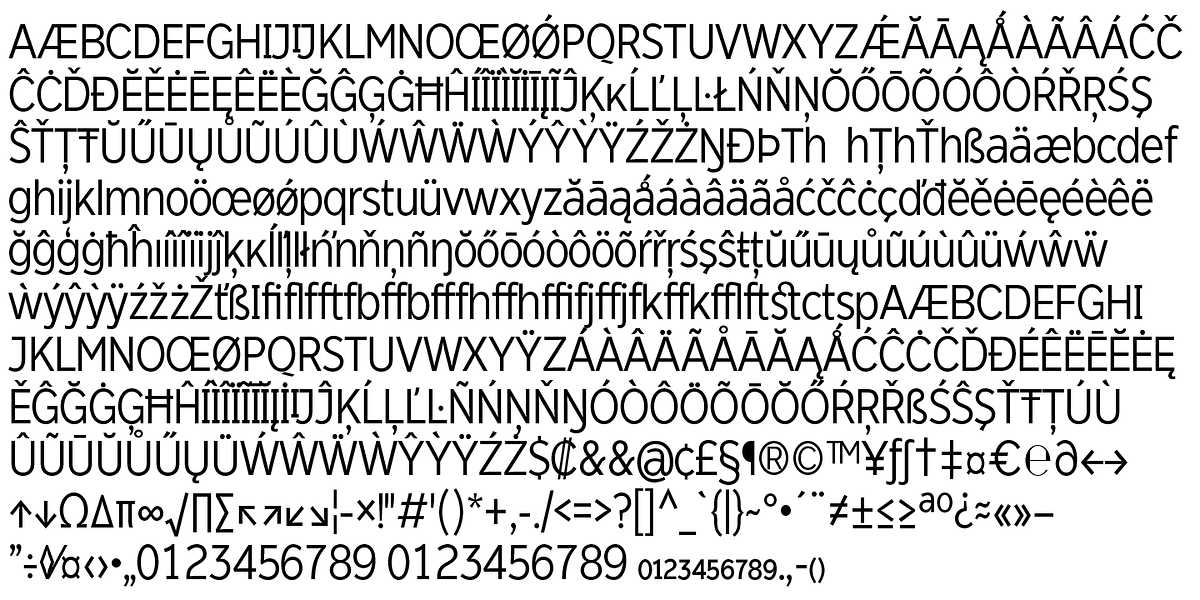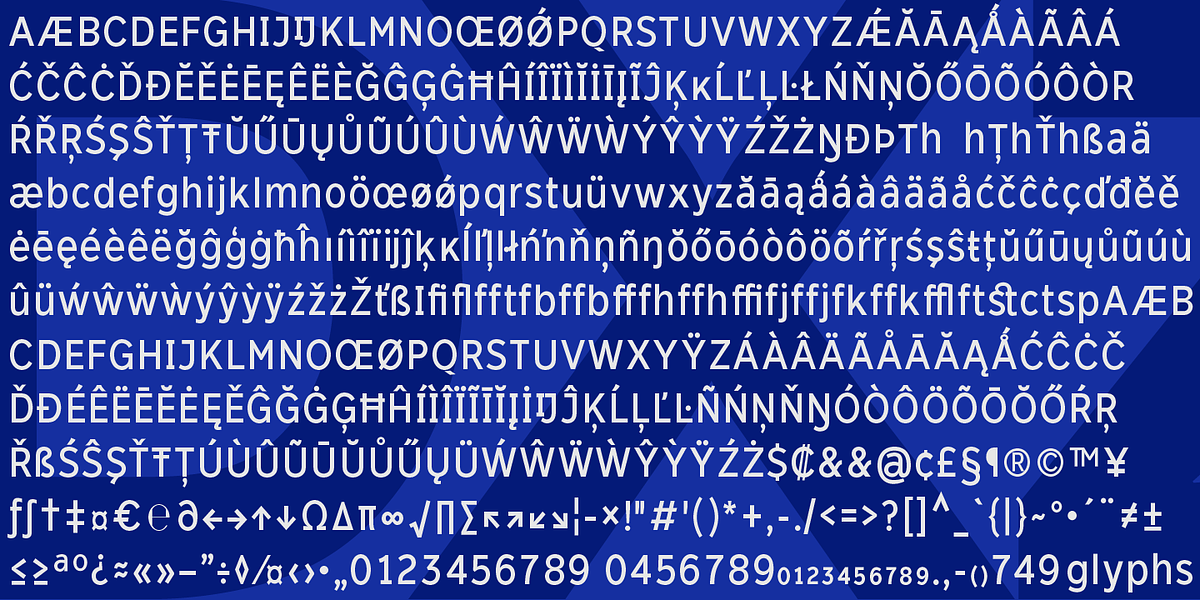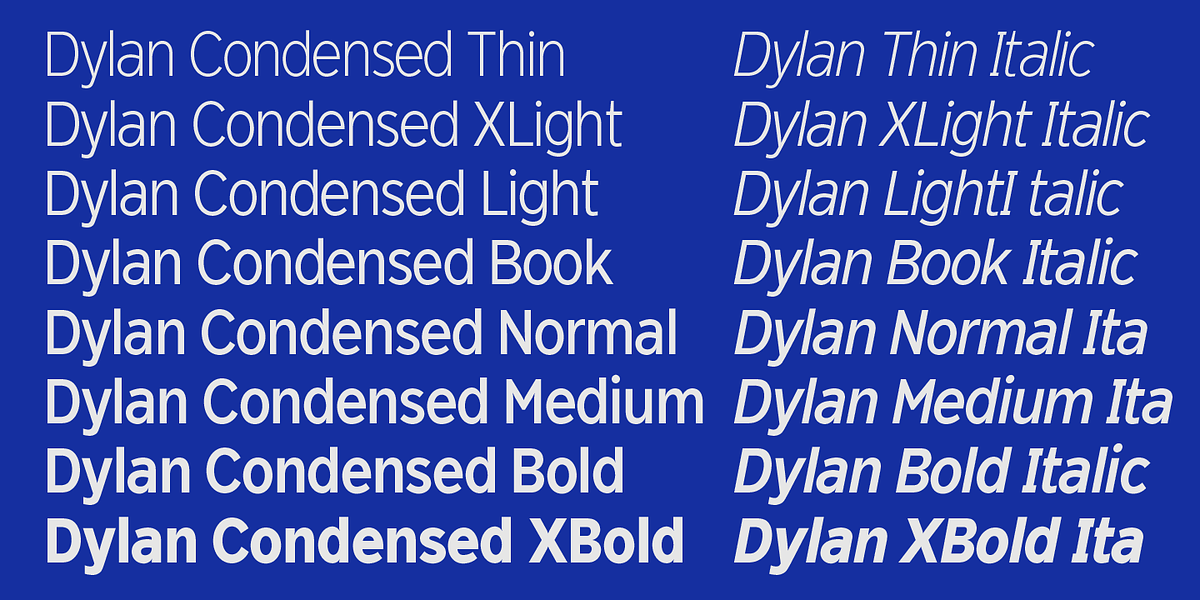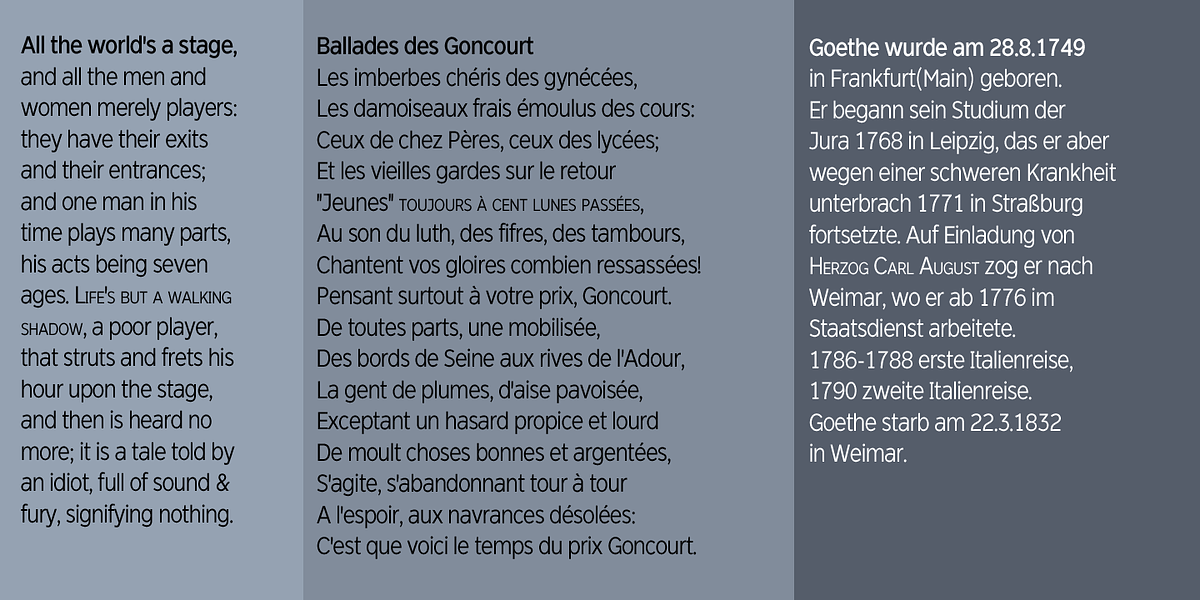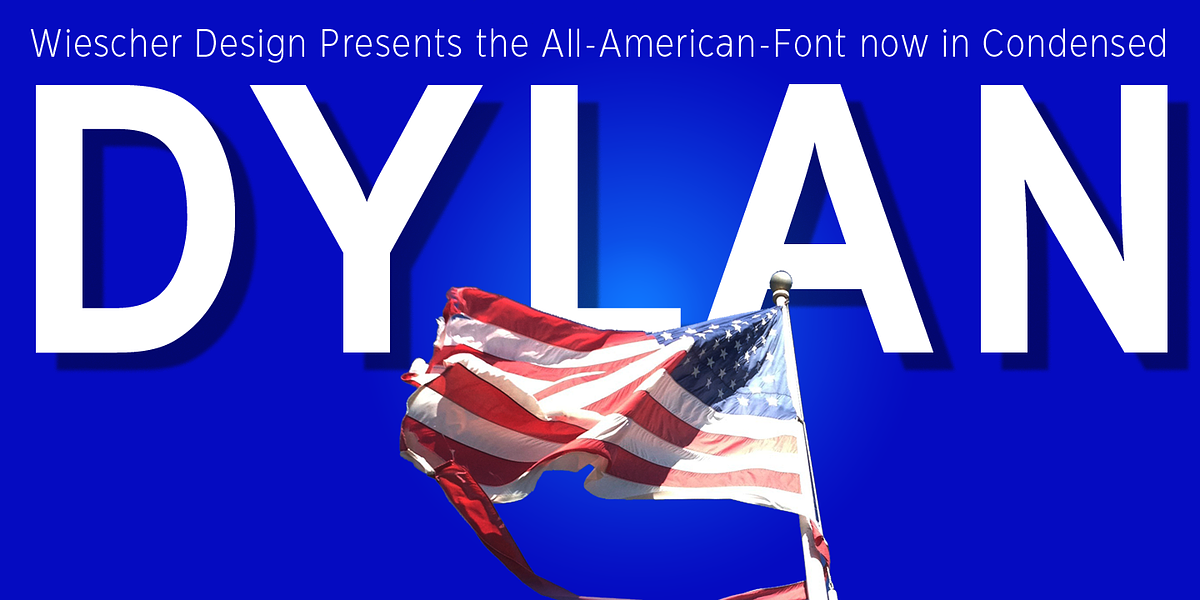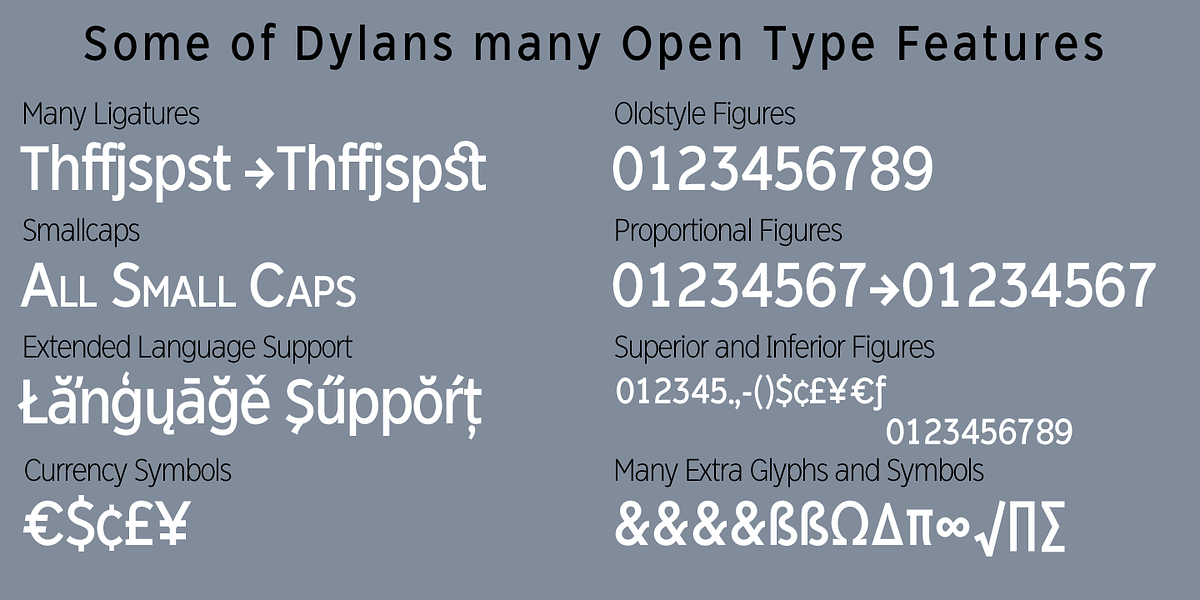
Dylan Condensed
Dylan is a neo-grotesque sans serif font designed for readability. Its deep cuts at the intersection of curves and straight lines enhance legibility, particularly in smaller sizes. The typeface includes eight weights with corresponding italic styles, making it suitable for a variety of applications. Dylan also features comprehensive language support, including most European languages and Turkish, along with numerous typographic elements such as small caps, fractions, and currency symbols.